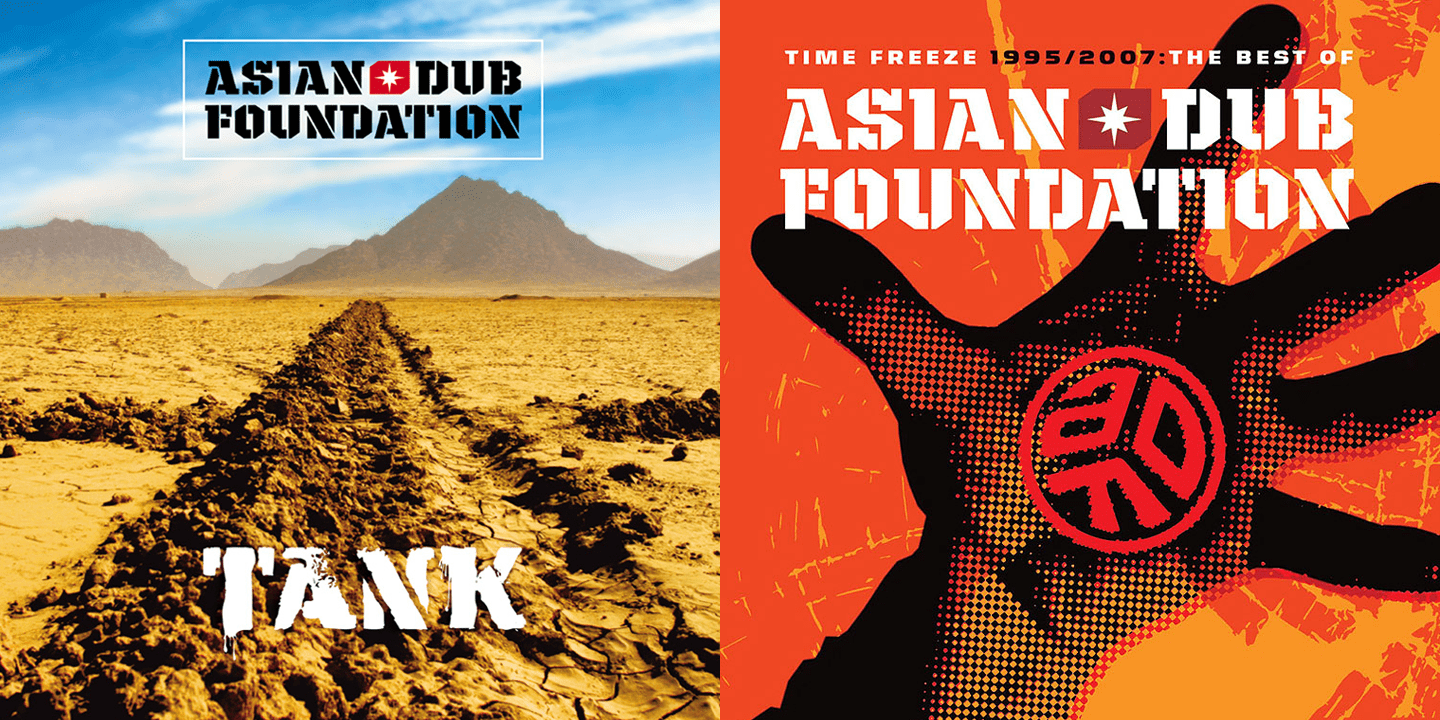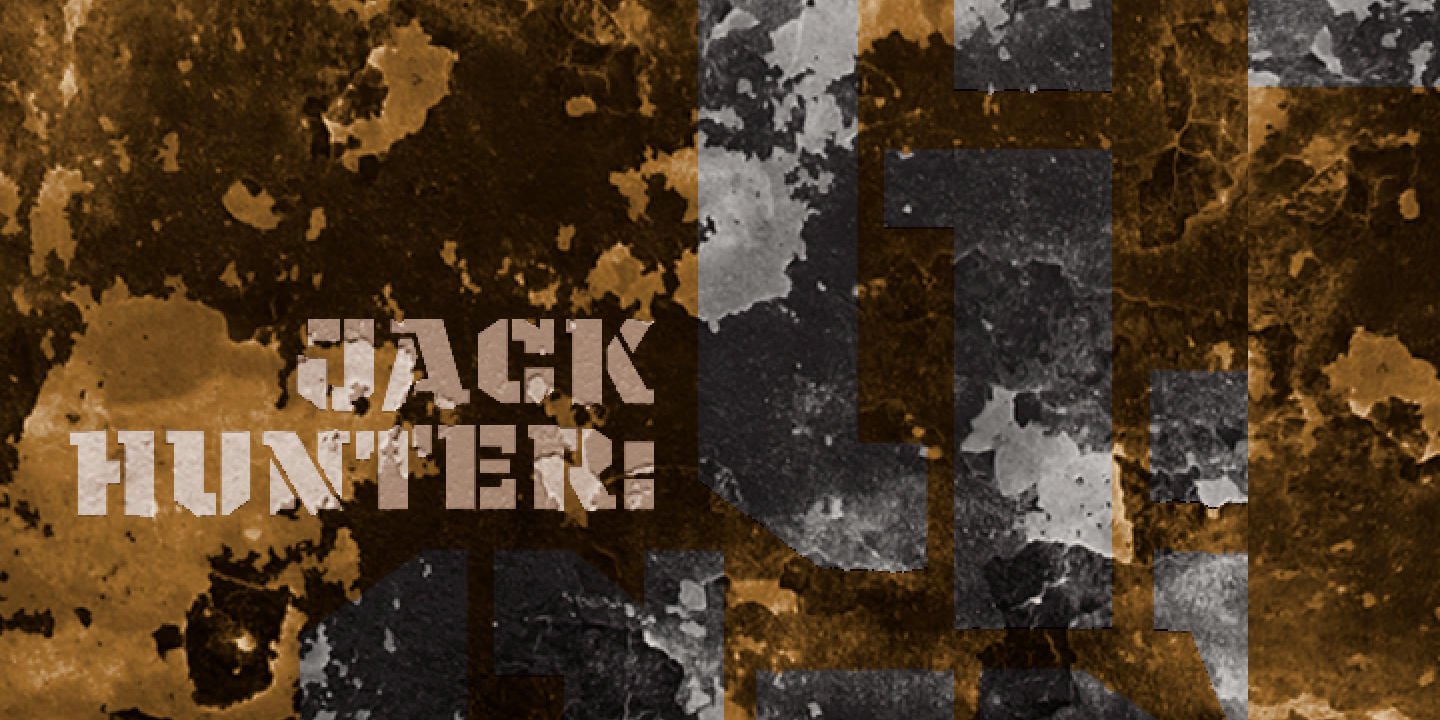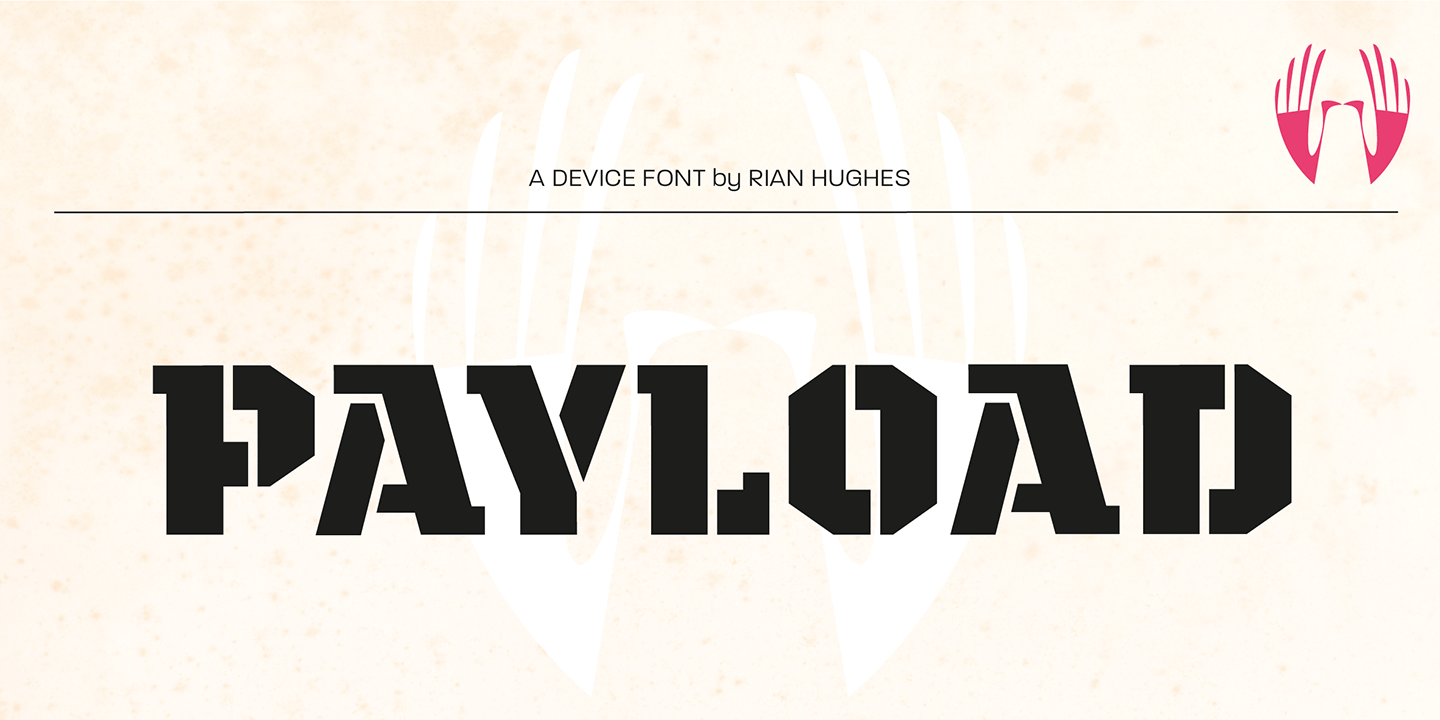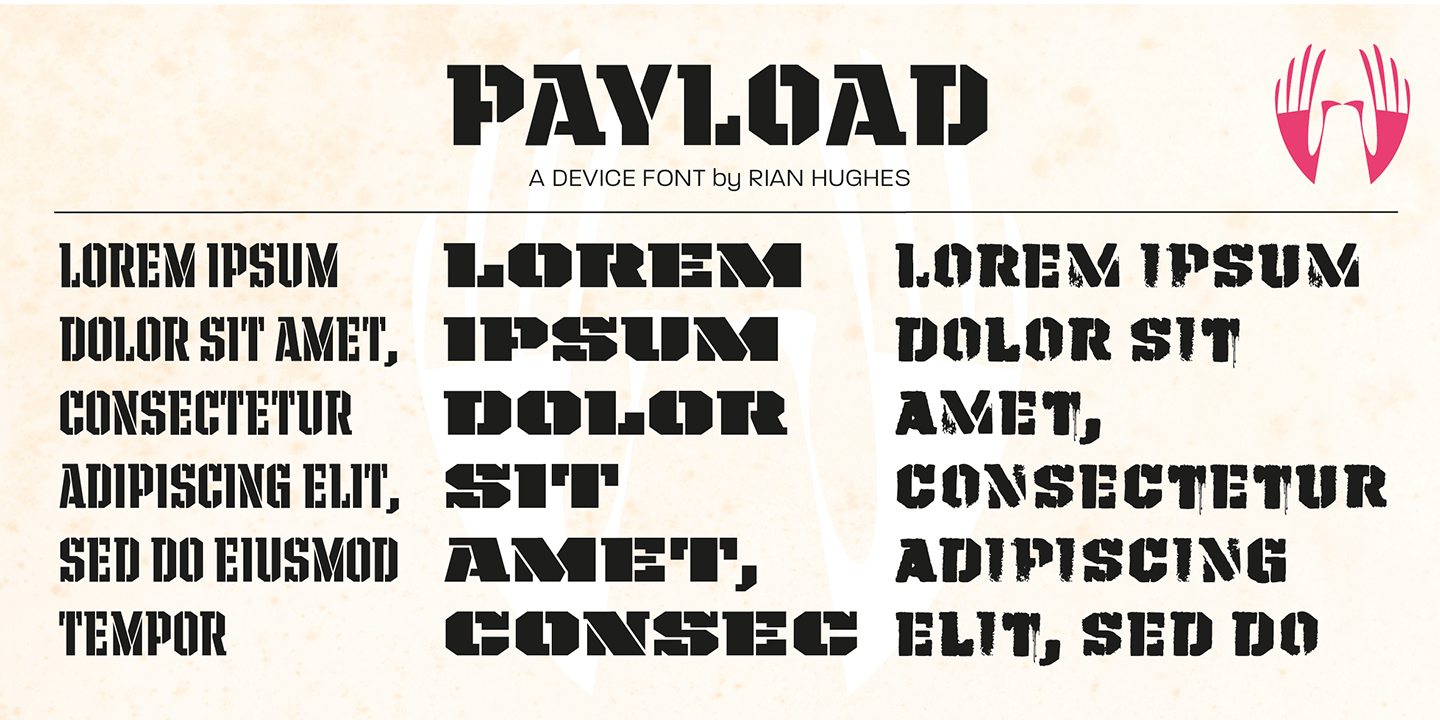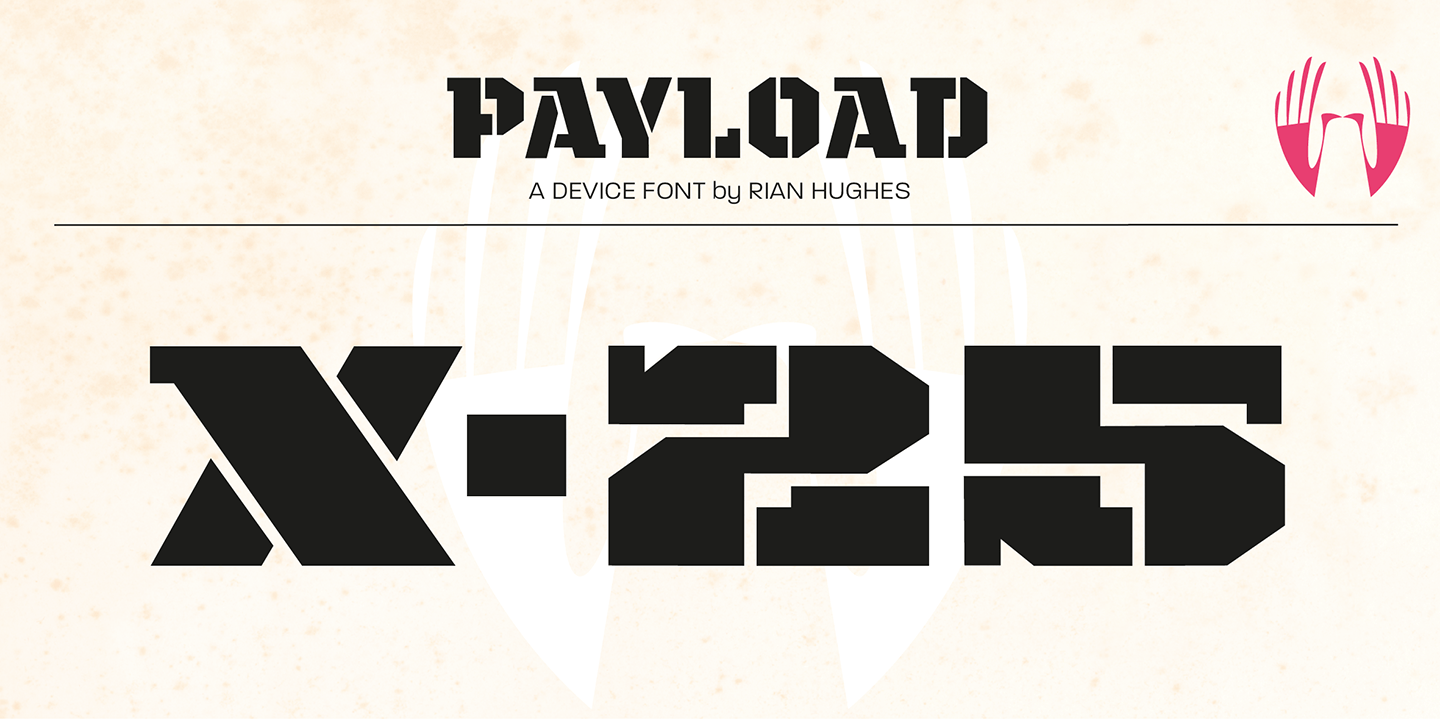
Payload
Payload began as an early concept for Loaded magazine, and here is developed into a clean outline and rough splattery spraycan version.
In this font, the upper and lower case characters are subtly different enabling a more realistic appearance to be achieved by